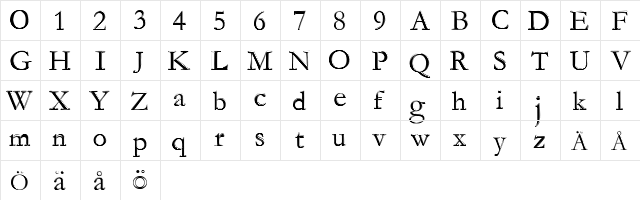
Mana Mana Regular
Design Context for Mana Mana Typeface
Mana Mana is a composed and adaptable typeface that performs quietly and consistently across a wide range of design contexts.